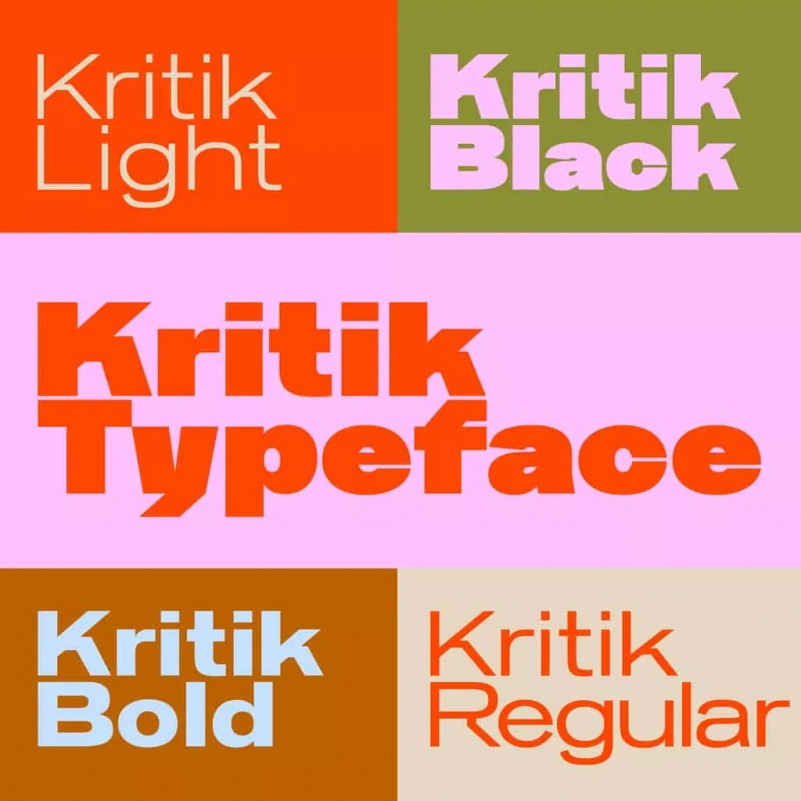
Kritik Font
How outstanding! Kritik Display Sans Serif Font, The first design of Kritik was specially made for an architecture magazine and developed further over time. Reflecting the magazine’s subject and theme, this typeface was designed with angular characters contrasted with round and soft basic forms; adding on elements to an already existing scaffold, a process akin to constructing a building.
The name comes from the German word “Kritik,” meaning criticism. Criticism can be hard and destructive, or soft and constructive, and in Kritik, both conditions have been turned into one typeface. This produced a type family consisting of 7 weights: Light, Regular, Medium, SemiBold, Bold, ExtraBold and Black.